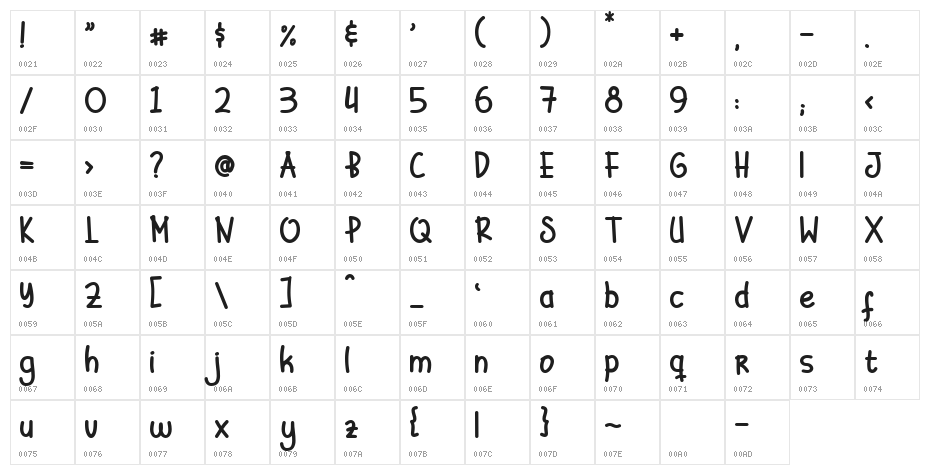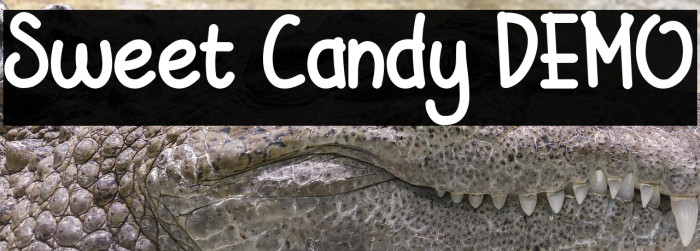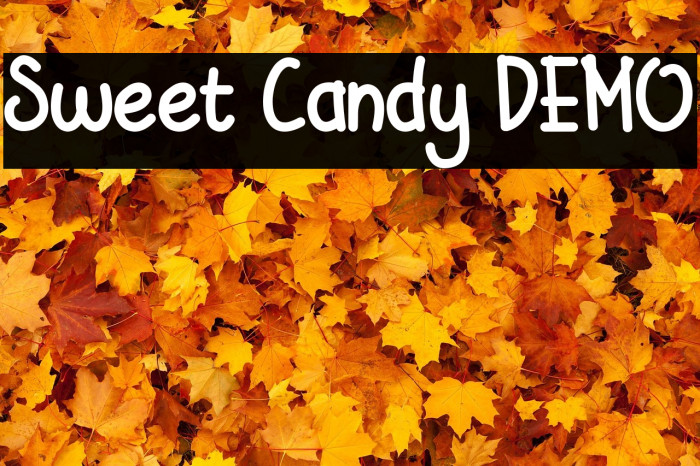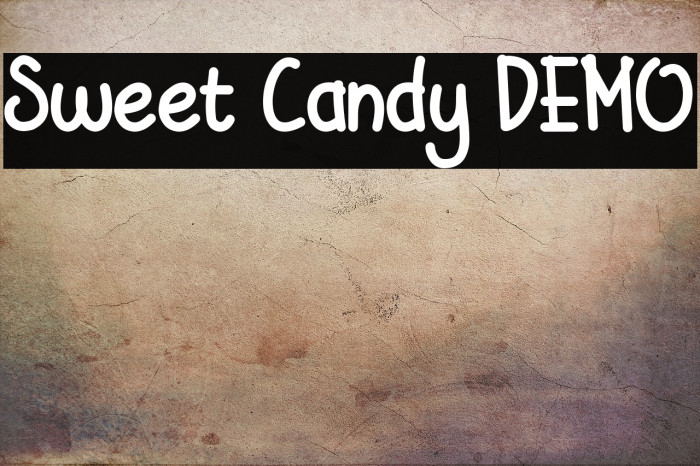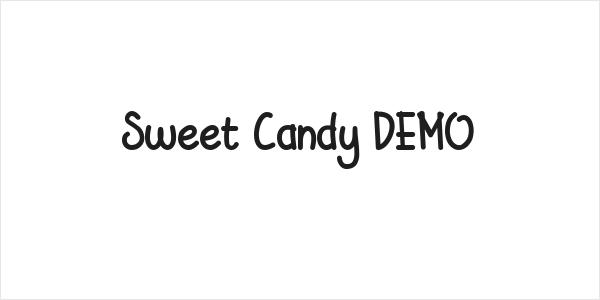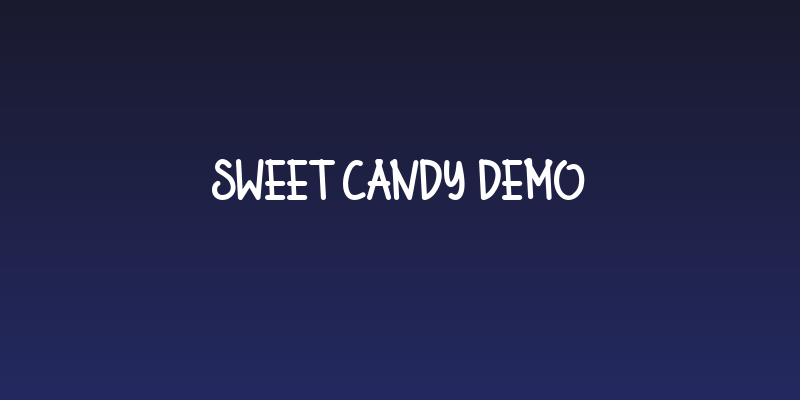
Sweet Candy DEMO Font
Sweet Candy DEMO Description
This playful and whimsical font features bold, rounded characters with a hand-drawn aesthetic. The letters are slightly irregular, giving them a casual and friendly appearance. The uppercase and lowercase letters maintain a consistent style, with smooth curves and a uniform thickness throughout. The numerals and special characters are designed to match the playful tone, making them suitable for creative projects. The overall look is reminiscent of a child's handwriting, making it perfect for designs that aim to convey fun and approachability.